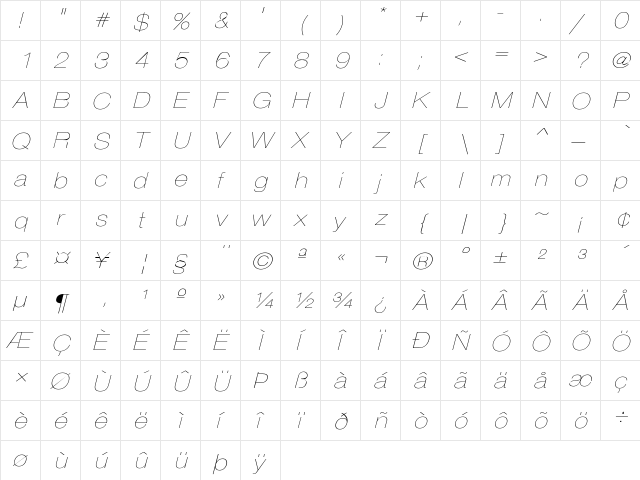
HelveticaExtObl-Thin Regular Font Preview
HelveticaExtObl-Thin Regular
Design Context for HelveticaExtObl-Thin Typeface
HelveticaExtObl-Thin offers clean, dependable letterforms without strong stylistic allegiance, making it a practical choice for designers who need flexibility. Its slender proportions lend an understated elegance to any composition.
Pro Tip: Pair HelveticaExtObl-Thin with a font of contrasting weight or personality to build a more expressive typographic hierarchy.